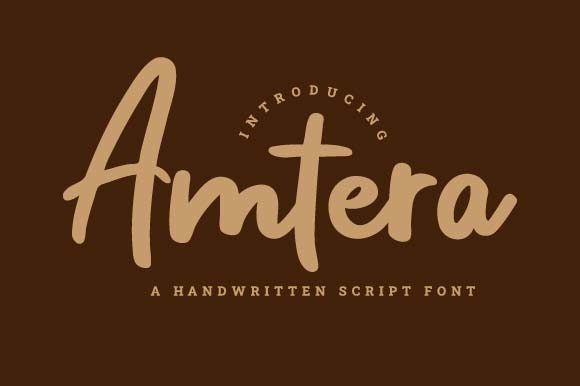
The Amtera Font: A Bold and Casual Handwritten Delight
I’ll never forget the time I was working on a wedding invitation project, and my client asked for a font that was both elegant and playful. I scoured the internet, trying out font after font, but nothing seemed quite right. That was until I stumbled upon Amtera. This bold and casual handwritten font has been a game-changer for me, and I’m excited to share it with you.
• ✨ **Versatility**: Amtera can be applied to a wide range of projects, from business cards and social media posts to branding, wedding invitations, logos, and more.
• ✅ **Readability**: Despite being a bold font, Amtera remains surprisingly readable, even at smaller sizes.
• 💕 **Personality**: Amtera has a unique, hand-crafted feel that adds a touch of warmth and personality to any design.
While Amtera is an excellent font, it’s not perfect. Here are a few things to keep in mind:
• 🤔 **Limited formal use**: Amtera is a casual font, so it may not be the best choice for more formal projects or applications.
• ⚠️ **Overuse**: As with any bold font, it’s easy to overuse Amtera. Make sure to balance it with other design elements to avoid overwhelming your audience.
A Practical Guide to Using Amtera
The Story Behind Amtera
Amtera was designed with the intention of creating a bold, yet approachable font that could be used in a variety of design applications. The designer wanted to create a font that felt both modern and hand-crafted, with a unique personality that would stand out in any design.
Q: What type of projects is Amtera best suited for?
A: Amtera is a versatile font that can be used in a wide range of projects, including business cards, social media posts, branding, wedding invitations, logos, and more.
Q: Is Amtera a difficult font to read?
A: Despite being a bold font, Amtera remains surprisingly readable, even at smaller sizes. However, it’s still important to use it in a way that balances readability with visual impact.
Q: Can I use Amtera with other fonts?
A: Yes, Amtera can be paired with other fonts to create a unique and visually appealing design. Experiment with different font combinations to find the perfect balance for your project.